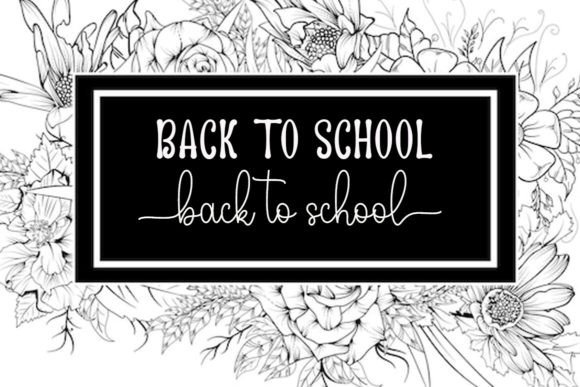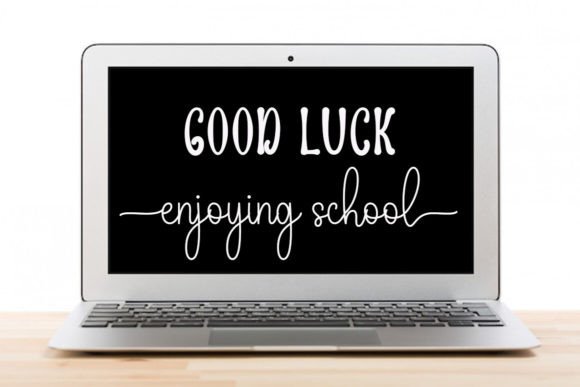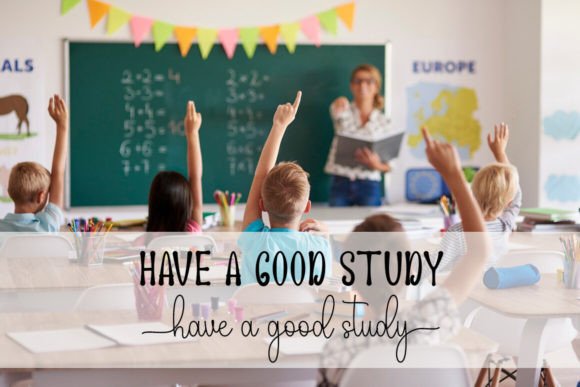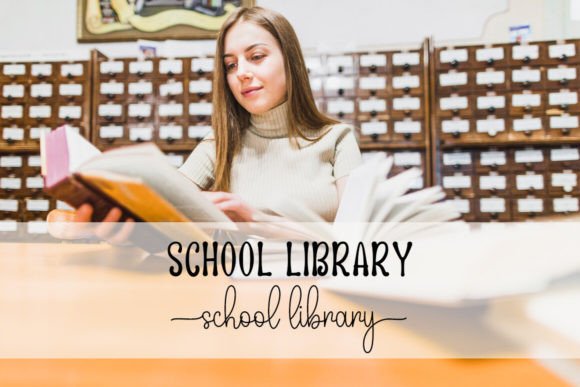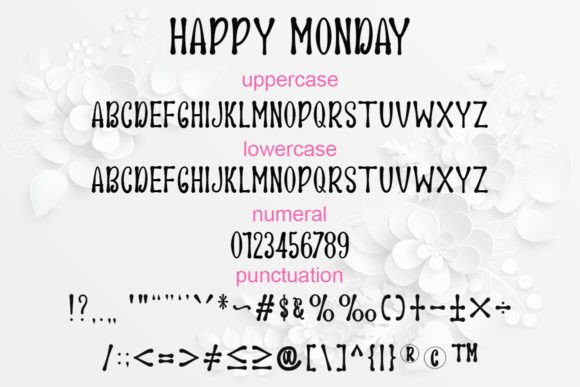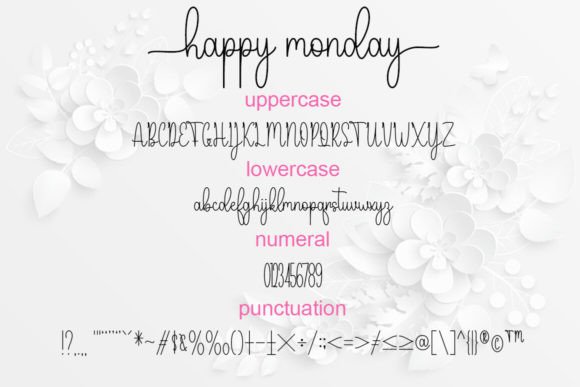
Introducing Happy Monday Font: A Lovely Handwritten Font Duo for Your Creative Projects
Are you tired of using the same old fonts in your designs? Do you want to add a touch of personality and style to your creations? Look no further than the Happy Monday Font, a beautiful handwritten font duo that’s perfect for designers, crafters, and anyone looking to add a little joy to their work.
What is Happy Monday Font?
Happy Monday Font is a lovely handwritten font duo that features well-rounded characters and a stylish vibe. This font is designed to inspire your creativity and bring a light and approachable style to your favorite creations. Whether you’re working on a graphic design project, crafting a handmade card, or creating digital content, Happy Monday Font is the perfect choice.
Key Features of Happy Monday Font
- Handwritten style: Happy Monday Font has a beautiful handwritten style that’s perfect for adding a personal touch to your designs.
- Well-rounded characters: The font features well-rounded characters that are easy to read and fun to use.
- Stylish vibe: Happy Monday Font has a stylish vibe that’s perfect for designers and crafters who want to add a little sophistication to their work.
Benefits of Using Happy Monday Font
So why should you choose Happy Monday Font for your creative projects? Here are just a few benefits of using this lovely font:
- Add a personal touch: Happy Monday Font is perfect for adding a personal touch to your designs, making them stand out from the crowd.
- Easy to use: The font is easy to use and comes with a range of glyphs and swashes that you can access with ease.
- Versatile: Happy Monday Font is versatile and can be used in a range of creative projects, from graphic design to crafting.
- Unique style: The font has a unique style that’s sure to inspire your creativity and bring a fresh perspective to your work.
How to Use Happy Monday Font
Using Happy Monday Font is easy! Here are a few tips to get you started:
- Experiment with glyphs and swashes: Don’t be afraid to experiment with the glyphs and swashes that come with the font. They’re a great way to add a little extra personality to your designs.
- Pair with other fonts: Happy Monday Font pairs well with other fonts, so don’t be afraid to get creative and try out different combinations.
Who is Happy Monday Font for?
Happy Monday Font is perfect for:
- Designers: Graphic designers, digital designers, and anyone looking to add a little personality to their designs.
- Crafters: Crafters, makers, and anyone who loves to create handmade cards, gifts, and other items.
- Content creators: Bloggers, social media managers, and anyone who wants to add a little style to their digital content.
In conclusion, Happy Monday Font is a lovely handwritten font duo that’s perfect for designers, crafters, and anyone looking to add a little joy to their work. With its well-rounded characters, stylish vibe, and PUA encoding, this font is sure to inspire your creativity and bring a fresh perspective to your designs. So why not give it a try today and see the difference it can make?